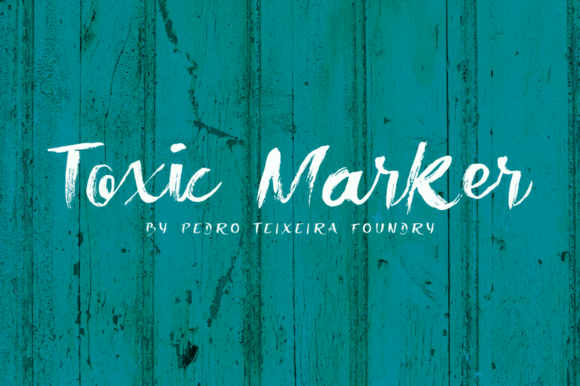
Introducing the Toxic Marker Font: A Grunge Aesthetic for Striking Designs
Unleash your creativity with the Toxic Marker Font, a display font that exudes a bold and edgy charm. Inspired by the raw energy of extreme texture markers, this font captures the essence of urban street art, graffiti, and contemporary design. Created by the talented Pedro Alexandre Teixeira, the Toxic Marker Font is poised to leave an indelible mark on your projects.
Visual Impact and Emotional Depth:
Dive into the unique world of the Toxic Marker Font, where every character bursts with expressive strokes and alluring imperfections. This font is more than just a collection of letters; it's a powerful tool that breathes life into your designs, evoking emotions and capturing attention.
Stand Out from the Crowd:
In a sea of ordinary fonts, the Toxic Marker Font stands as a beacon of individuality. Its grunge aesthetic sets it apart, ensuring that your designs will command attention and make a lasting impression. Whether you're crafting logos, posters, social media graphics, or eye-catching headlines, the Toxic Marker Font will elevate your work to new heights.
Textile Designs That Speak Volumes:
Unleash the full potential of the Toxic Marker Font in textile designs that tell a story. Imagine t-shirts, tote bags, and home décor adorned with the raw beauty of this font. Each design becomes a canvas for your creativity, where the Toxic Marker Font's bold strokes and dynamic energy speak volumes.
A Versatile Masterpiece for Creative Expression:
The Toxic Marker Font is not confined to a single genre or style. Its adaptability shines through in various applications, from branding and marketing materials to web design and packaging. Experiment with different color combinations, textures, and compositions to discover the endless possibilities that await you.